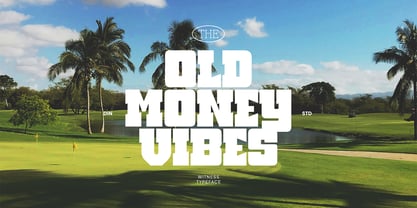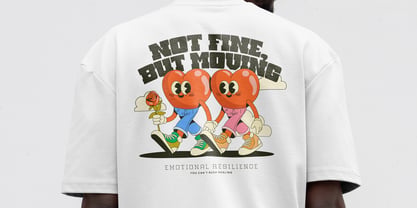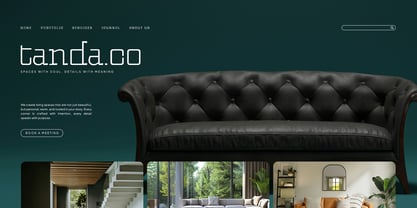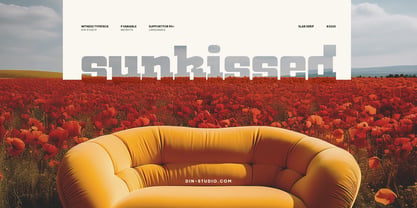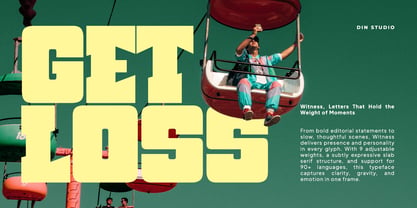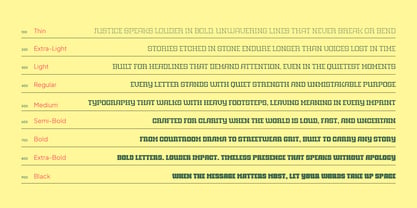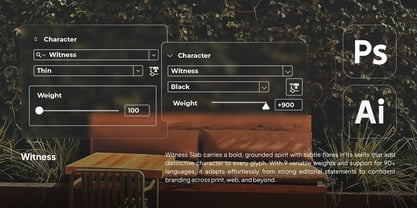
Witness
by Din Studio
The Witness Font Family was designed by Donis Miftahudin and published by Din Studio. Witness contains 9 styles and family package options. More about this family
Witness is a modern slab serif font family that offers designers a perfect balance of boldness, versatility, and contemporary style. Made in nine different weights, from thin to black, Witness gives you complete creative control for any type of project. The design of Witness stands out through its rounded shapes and sharp angles, creating a distinctive look that feels both approachable and confident. Witness fits in branding, quotes, name cards, apparels, logos, posters, and many more designs. Find out more ways to use this font by taking a look at the font preview. Thanks for purchasing our fonts. Hopefully, you have a great time using our font. Feel free to contact us anytime for further information or when you have trouble with the font.
Designers: Donis Miftahudin
Foundry: Din Studio